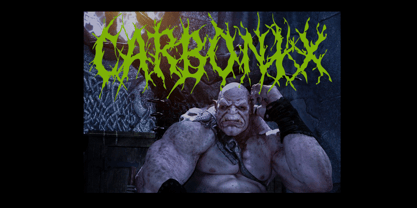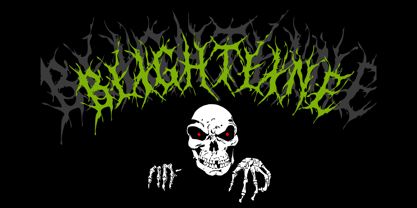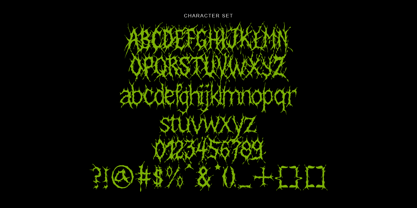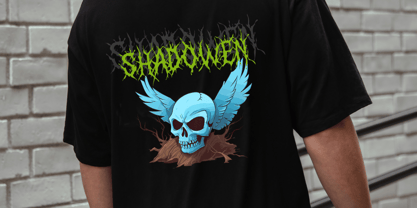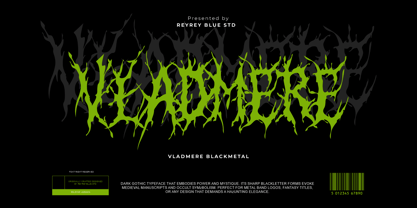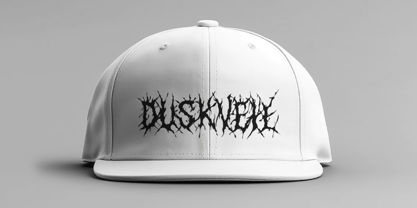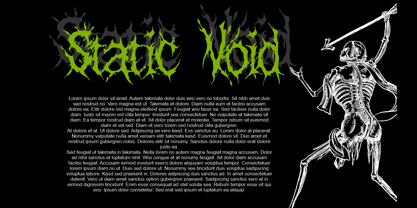
Vladmere
by Reyrey Blue Std
The Vladmere Font Family was designed by Nur Hasan and published by Reyrey Blue Std. Vladmere contains 1 styles. More about this family
Vladmere Blackmetal is an extreme dark gothic typeface inspired by black metal band logos, medieval blackletter, and occult symbolism. This font features sharp, tangled, root-like letterforms that create a chaotic, mysterious, and aggressive visual impact. Every character feels alive, twisted, and organic — perfect for projects that demand darkness, power, and intensity. Designed for heavy music culture, Vladmere Blackmetal is ideal for metal band logos, album covers, horror movie titles, fantasy game art, gothic clothing designs, tattoo typography, underground posters, and dark branding projects. Its thorned and spiked anatomy makes it stand out at large sizes, creating a bold statement in both digital and print designs. Whether you're creating a brutal logo or an ominous headline, Vladmere delivers raw, haunting energy. Perfect for: Black metal / death metal / doom metal logos Horror and occult design Gothic & medieval artwork Fantasy and dark game titles Tattoo and streetwear design Album covers & band merchandise Posters, book covers, and dark branding Dare to embrace the darkness with Vladmere Blackmetal — a font forged from shadow, chaos, and ancient power.
Vladmere